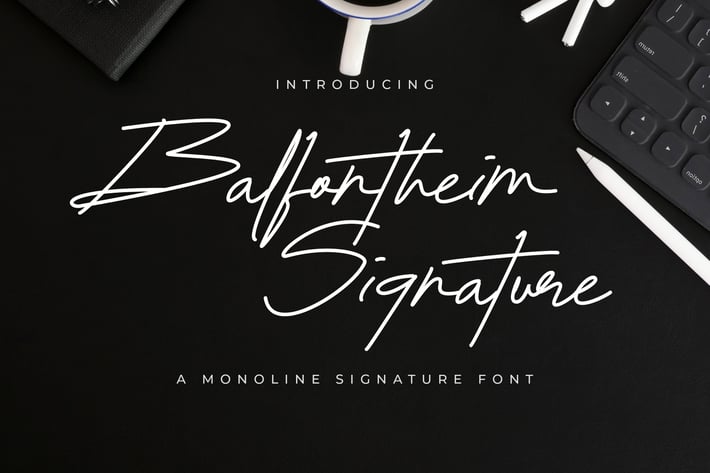
Balfontheim Signature - Monoline Signature Font
Balfontheim Signature is a elegant and stunning script font. It features a modern style and will add a unique feel to your upcoming projects. Get inspired by its authentic feel and use it to create gorgeous wedding invitations, beautiful stationary art, eye-catching social media posts, and elegant greeting cards.